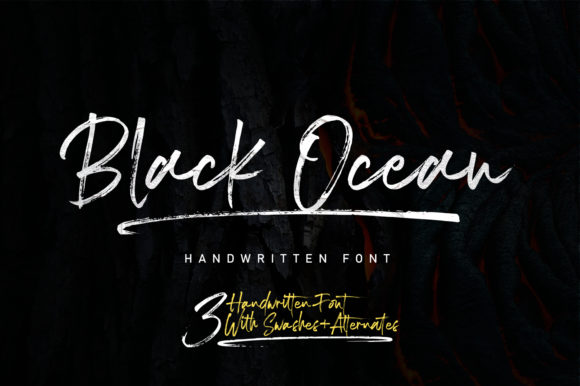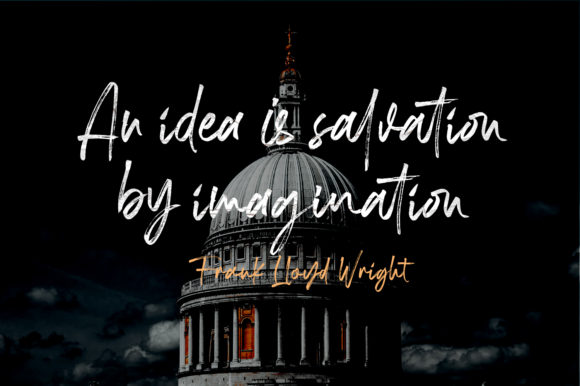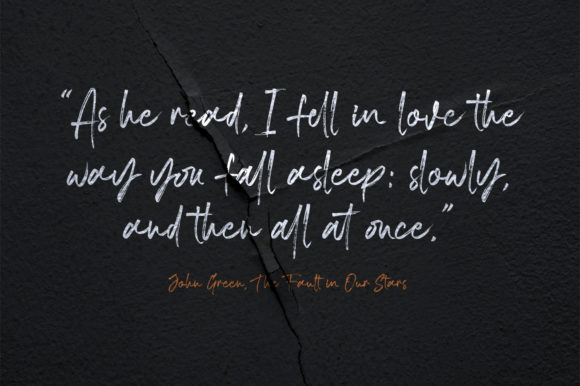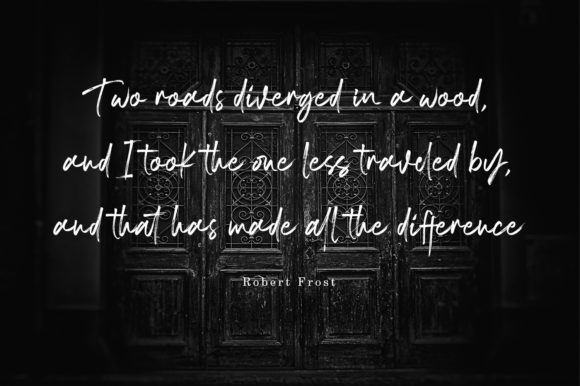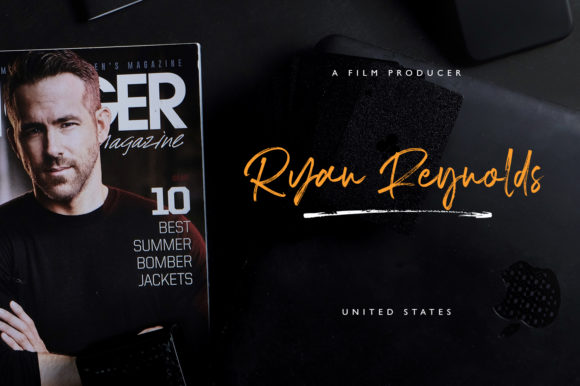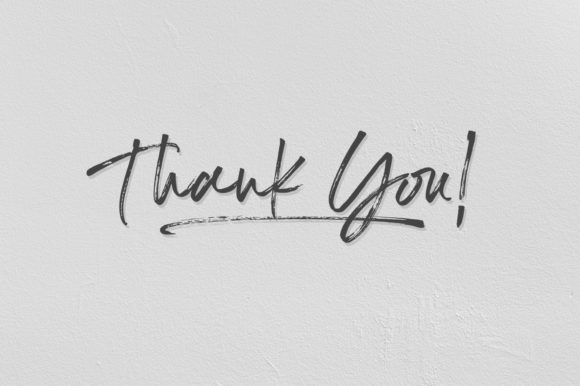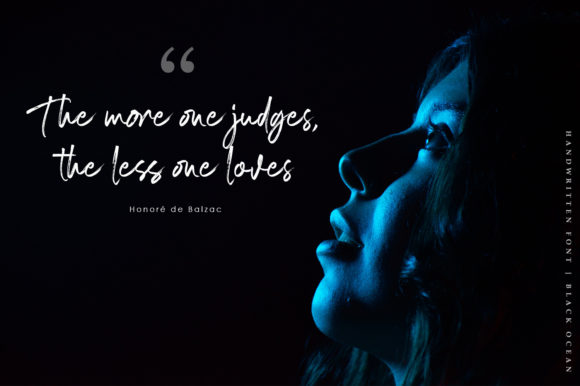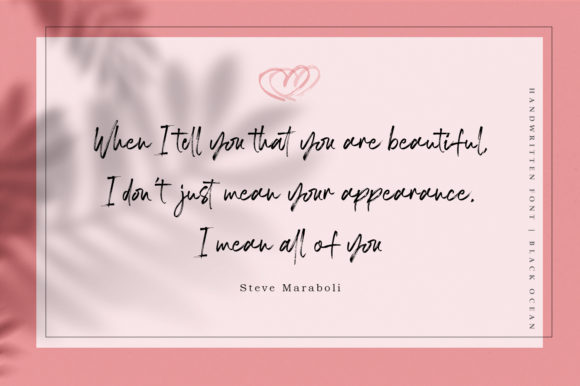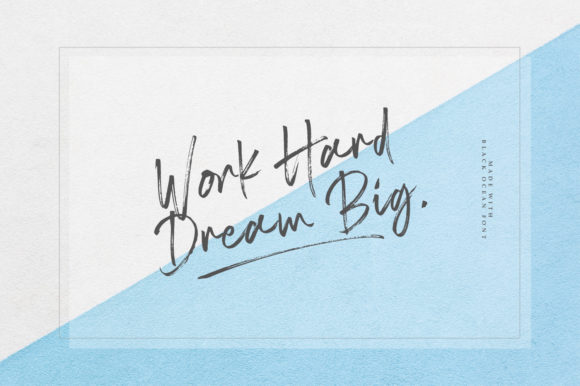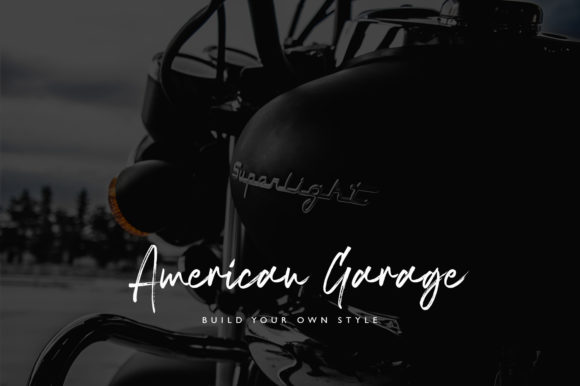
Black Ocean Font
About Black Ocean Font
Black Ocean is a strong and extraordinarily unique script font with a cool vibe. Get inspired by its modern vibe.